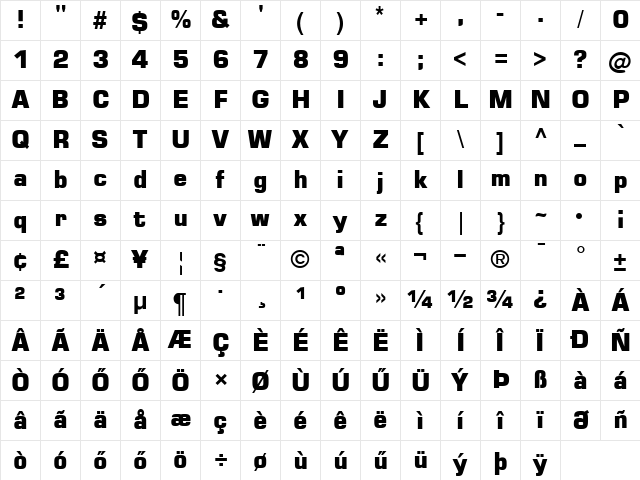
H_Square 721 Blk Normal
Complete H_Square 721 Blk Normal glyph index. Displaying only characters natively supported by H_Square 721 Blk Normal font.
Design Context for H_Square 721 Blk
H_Square 721 Blk is a composed and adaptable typeface that performs quietly and consistently across a wide range of design contexts.